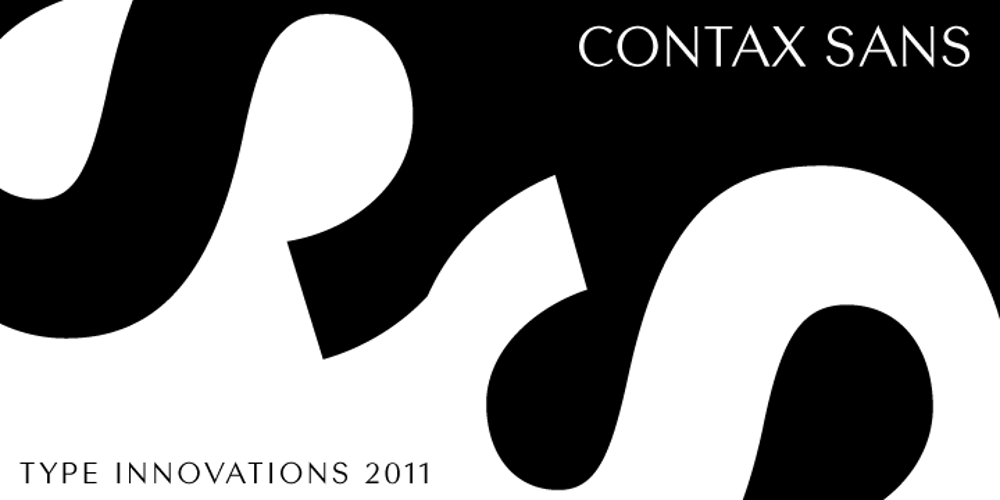
Contax Sans
Contax Sans font
Contax Sans Font Family was designed by Alex Kaczun and published by Type Innovations. Contax Sans contains 14 styles and family package options. Contax Sans is a contemporary typeface design based on generous proportions and clean crisp lines—making it ideal for long lines of copy and easy reading. It was modeled after and based on one of his most popular new geometric font families Contax Pro. Similar to the proportions and overall spacing of Contax, the new Contax Sans incorporates subtle thick and thin stem variations reminiscent of Hermann Zapf’s Optima family of fonts. The new typeface series shares all the best aspects of Contax Pro, but is a more delicate and elegant interpretation of the original grotesque and can easily be used in conjunction with or separately for a multitude of typographic solutions.